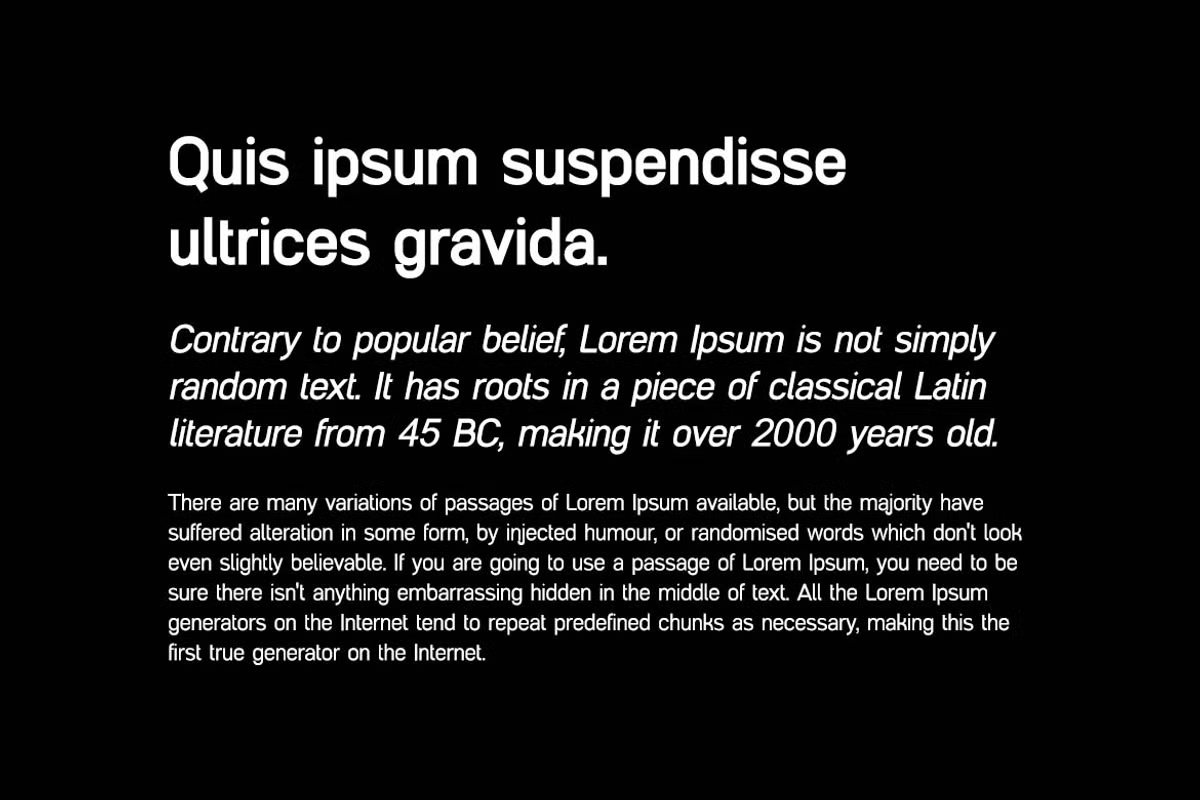
Masonries Sans Font Family
Masonries is a sleek and modern sans serif font family with an elegant, stylish appeal. Perfect for stationery, logos, weddings, typography quotes, magazines, book covers, website headers, branding, and more.
Masonries Sans Serif Font Family